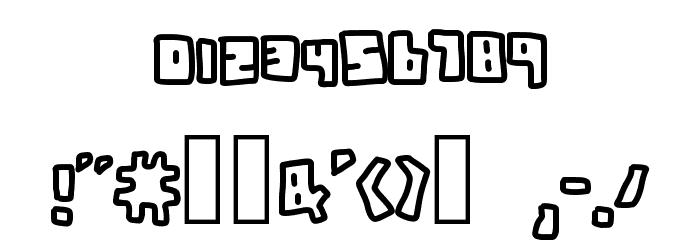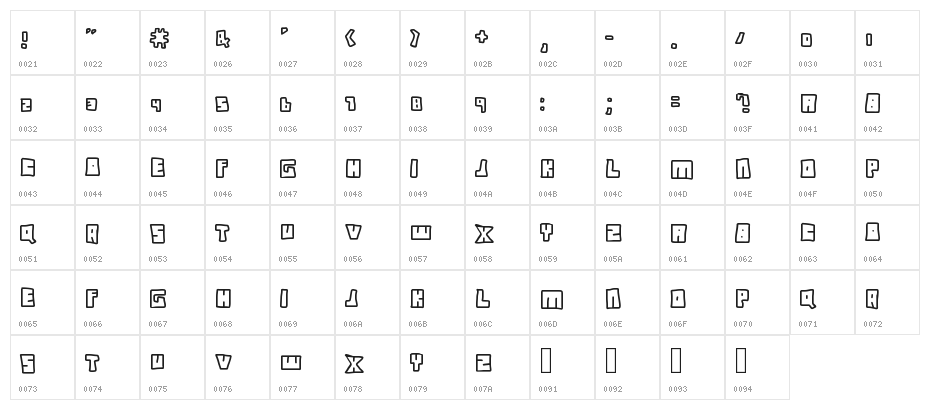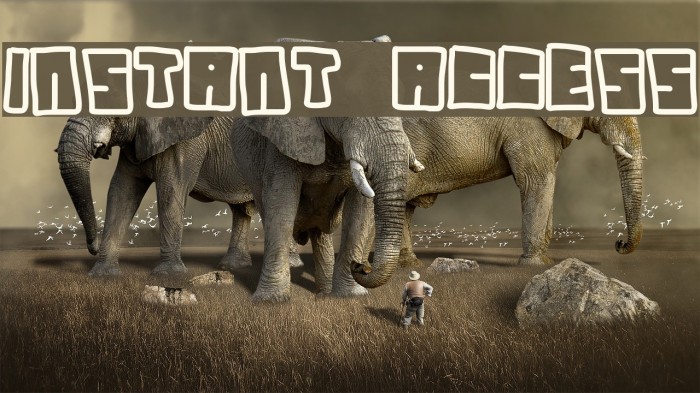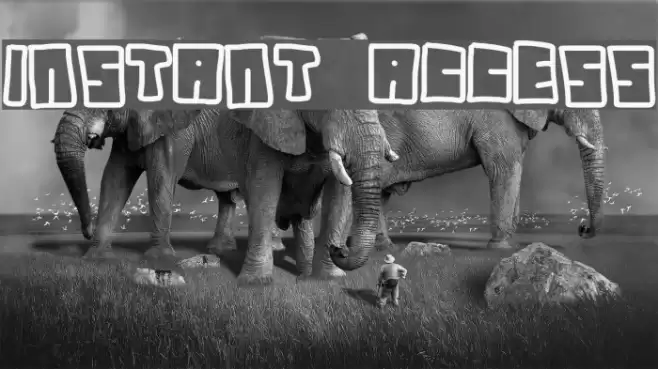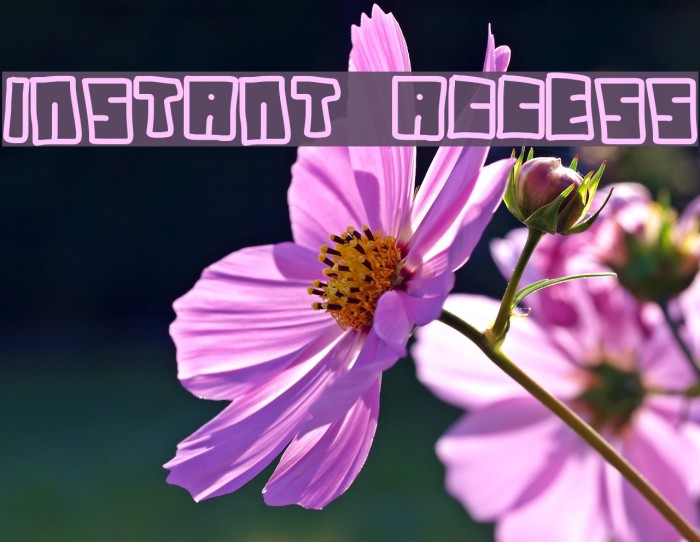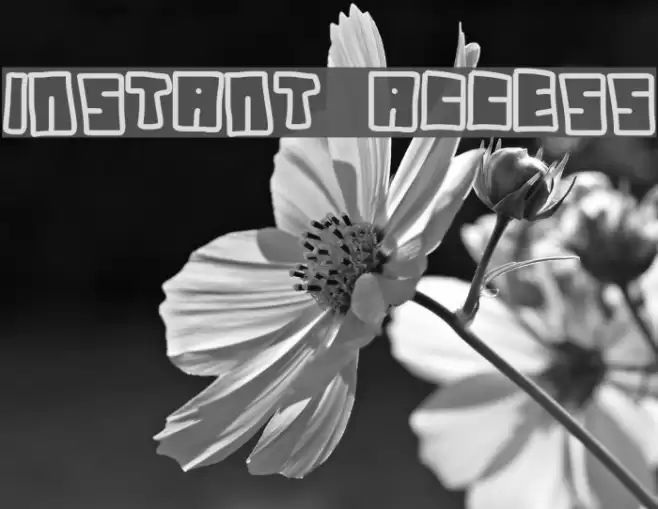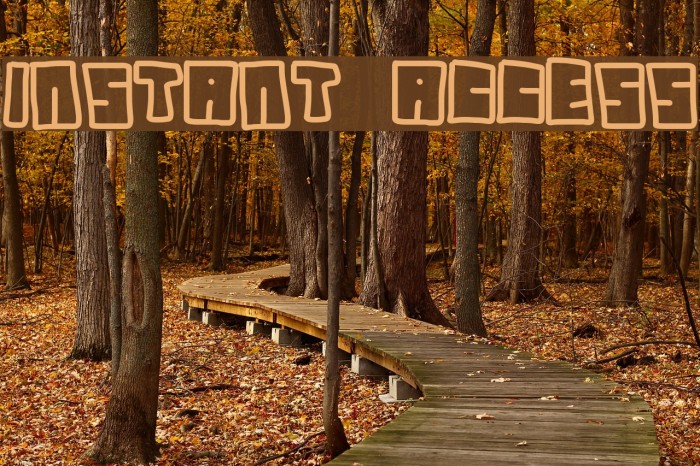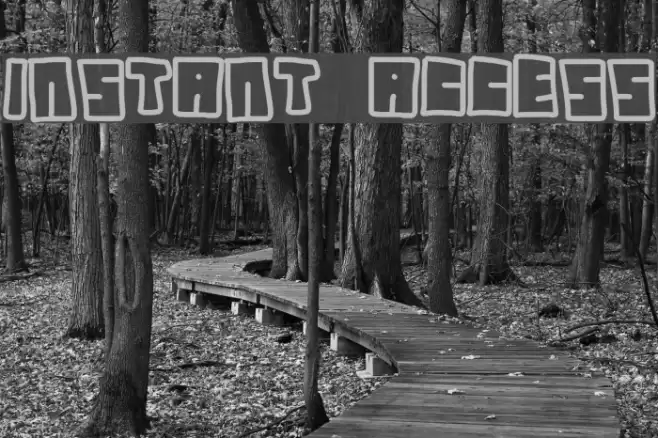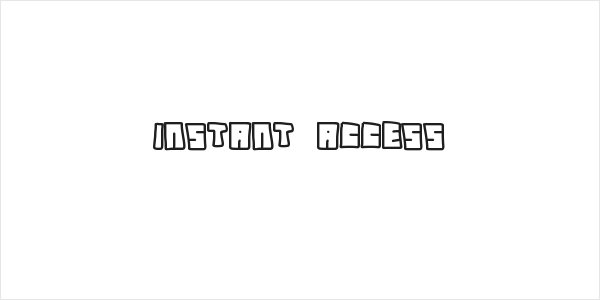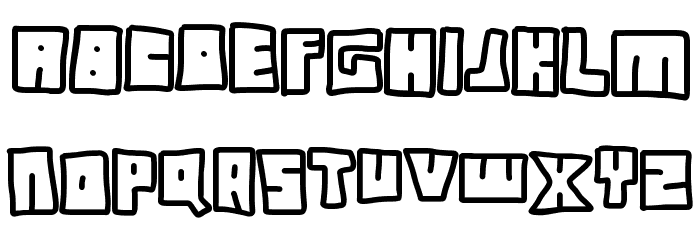
instant access Font
instant access Description
This font features a bold, playful design with a hand-drawn aesthetic. Each character is enclosed within a boxy, irregular outline, giving it a unique and quirky appearance. The letters are uppercase and lowercase, with numbers and a selection of special characters. The style is reminiscent of graffiti or comic book lettering, with a casual and informal vibe. The strokes are thick and consistent, providing a strong visual impact. The font's irregular shapes and playful nature make it stand out, ideal for creative and fun projects.
| Overall Style | Playful, Quirky, Comic |
| Proposed Projects | Ideal for children's books, comic strips, playful branding, and creative posters. |